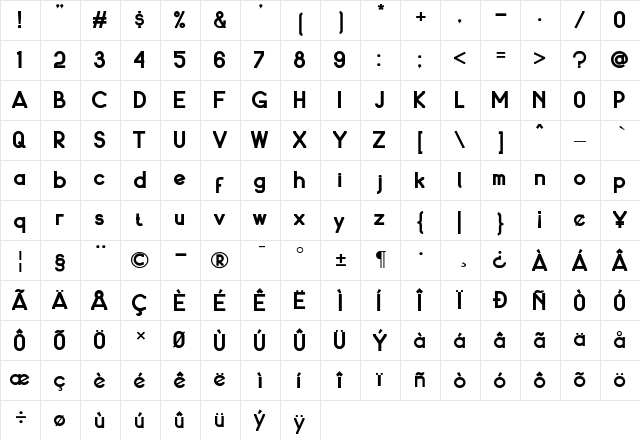
Protocol Regular
Design Context for Protocol Typeface
Protocol takes a measured approach to typography — its balanced proportions and neutral character make it a reliable workhorse for both digital and print work.